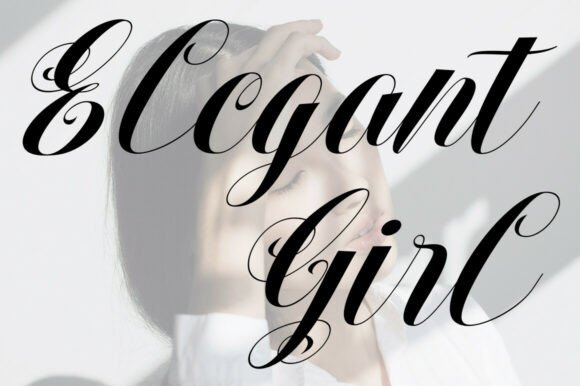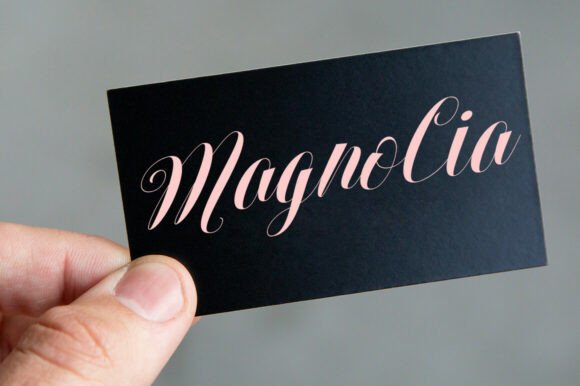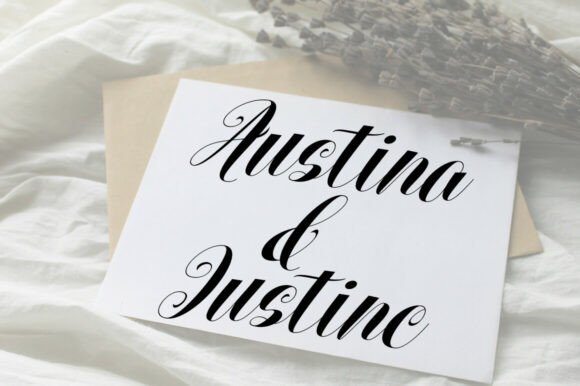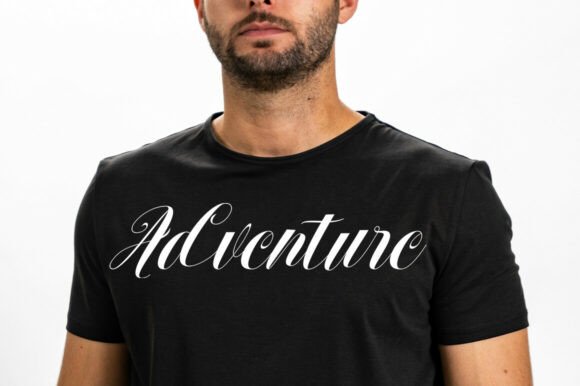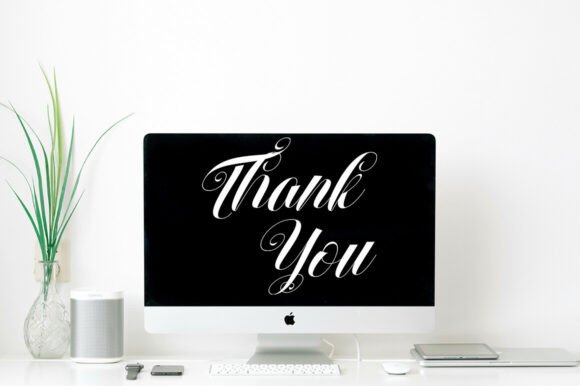
Aurelline Font: Elevate Your Designs with Elegance and Sophistication
In the world of typography, few fonts capture the essence of elegance and sophistication as effortlessly as Aurelline. This modern calligraphy script boasts a gentle, irregular baseline that exudes a trendy, feminine charm, making it an ideal choice for designers seeking to add a touch of refined luxury to their projects. With its sweeping, delicate strokes and high-contrast letterforms, Aurelline is the perfect font for creating stunning wedding invitations, upscale branding, beauty packaging, and more.
The Timeless Appeal of Aurelline
Aurelline’s ornate curves and flourishes give it a timeless look that feels both romantic and stylish. This beautiful font is designed to evoke a sense of nostalgia and sophistication, making it perfect for designers who want to create memorable impressions. Whether used for logos, stationery, or product labels, Aurelline adds an air of elegance and charm to every project. Its versatility and customizability make it an excellent choice for a wide range of design applications.
Ideal Applications for Aurelline
Aurelline shines in various design contexts, including:
- Wedding Suites: Create breathtaking wedding invitations, save-the-date cards, and thank-you notes that set the tone for a luxurious and unforgettable celebration.
- Branding and Packaging: Elevate your brand’s visual identity with Aurelline’s elegant and sophisticated charm, perfect for beauty packaging, product labels, and upscale marketing materials.
- Stationery and Greeting Cards: Add a touch of refinement to your stationery, quotes, and greeting cards, making them perfect for special occasions or everyday correspondence.
- Logos and Business Cards: Make a lasting impression with Aurelline’s beautiful, high-contrast letterforms, ideal for logos, business cards, and professional networking materials.
Customizing Aurelline: Features and Flexibility
Aurelline offers a range of features that allow designers to customize and tailor the font to their specific needs. With access to OpenType, you can:
- Alternate and Swash Characters: Mix and match different letterforms and swashes to create unique and eye-catching combinations.
- Natural Ligatures: Use ligatures to connect letters and create a more fluid, natural look.
- Multilingual Support: Work with a font that supports multiple languages, making it perfect for international design projects.
- Graceful Initial and Terminal Forms: Add an extra touch of elegance with beautifully crafted initial and terminal forms.
Pairing Aurelline with Other Design Elements
Aurelline pairs beautifully with ink or watercolor textures, adding an extra layer of depth and visual interest to your designs. Experiment with different textures and backgrounds to create unique and captivating visuals. When pairing Aurelline with other fonts, consider combining it with clean and simple sans-serifs or serif fonts to create a striking contrast.
Aurelline is a stunning modern calligraphy script that embodies elegance, sophistication, and refinement. With its delicate strokes, high-contrast letterforms, and ornate curves, this font is perfect for designers seeking to create memorable and luxurious designs. Whether used for wedding invitations, branding, packaging, or stationery, Aurelline is sure to elevate your projects and leave a lasting impression. Explore the features and flexibility of Aurelline today and discover the perfect font for your next design venture.
- Modern calligraphy script
- Gentle, irregular baseline
- Sweeping, delicate strokes
- High-contrast letterforms
- Ornate curves and flourishes
- OpenType access for alternates and swashes
- Multilingual support
- Graceful initial and terminal forms